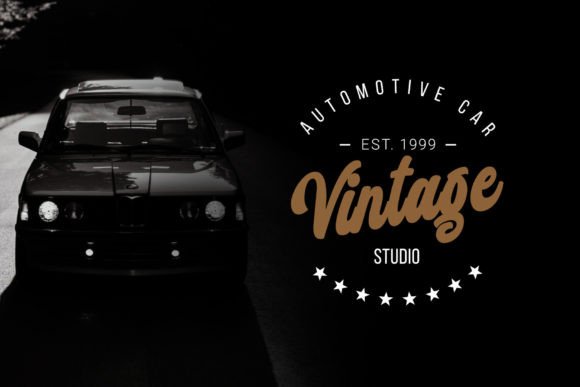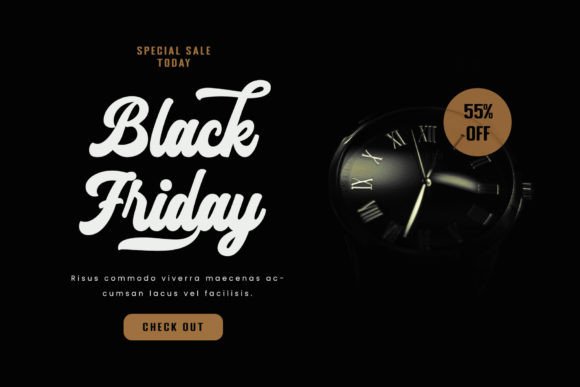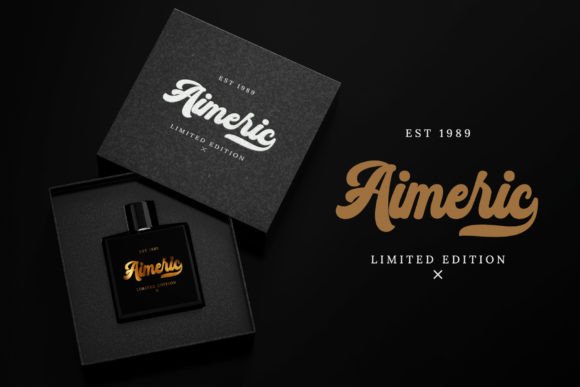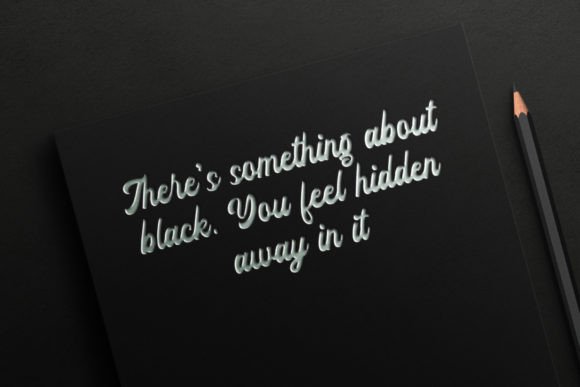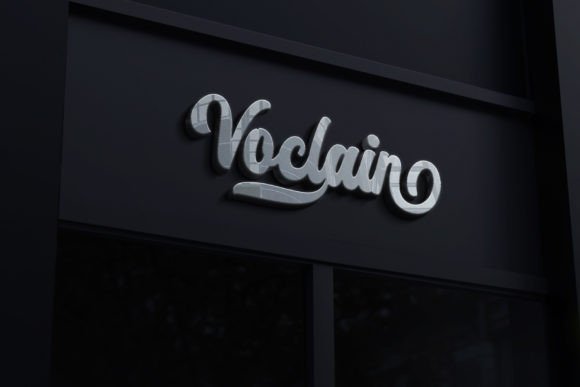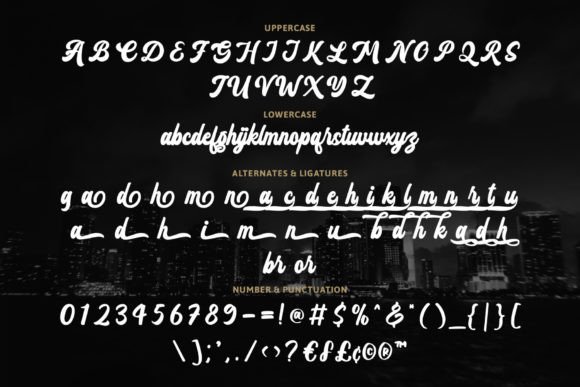
Introduction to Mangola Font
Have you ever found yourself in a creative frenzy, pouring your heart and soul into a project, only to realize that the perfect font is missing? This is a common dilemma that many designers face, but what if I told you that there’s a solution that can elevate your design game? Say hello to the Mangola Font, a stunning cool bold script font that adds a touch of elegance and sophistication to any project.
As a valuable resource for designers, the Mangola Font is perfect for creating high-quality designs that stand out from the crowd. Whether you’re working on a wedding invitation, a thank you card, or a logo, this font is sure to impress. With its free download option and transparent background, you can easily integrate it into your creative project and take it to the next level.
Key Features of Mangola Font
- High-quality, professional design resource ideal for creative projects
- Unique, stylish design perfect for adding a touch of elegance to any project
Honest Review: Mangola Font
I recently stumbled upon the Mangola Font while searching for a design resource to enhance my creative project. I was impressed by its high quality and unique style, which made it stand out from other fonts I’ve used in the past.
- ✨ The font has a clear and transparent background, making it easy to use for backgrounds and overlays.
- ✨ It’s highly versatile and can be used for a variety of design projects, from logos to posters.
- ⚠️ The font may not be suitable for very small text sizes, as the characters can become difficult to read.
- ⚠️ Some users may find the font’s unique style too bold or overpowering for certain design projects.
Overall, I’m impressed with the Mangola Font and would definitely recommend it for designers looking for a high-quality, creative resource. While it may not be perfect for every project, it’s a great addition to any design arsenal.
Tips for Getting the Most Out of Mangola Font
To get the most out of Mangola Font, experiment with different font sizes, colors, and combinations to find the perfect look for your project. You can also use it in conjunction with other design elements, such as images or shapes, to create a visually appealing design.
Common Use Cases for Mangola Font
Mangola Font is perfect for a variety of creative projects, including logos, social media graphics, posters, and business cards. Its high-quality design and transparent background make it ideal for any project where you want to add a touch of elegance and sophistication.
Alternatives to Mangola Font
Great Vibes is a high-quality, elegant script font ideal for creative projects that require a touch of sophistication. It’s perfect for wedding invitations, quotes, and other design elements that need a romantic feel.
Great Vibes Font is similar to Mangola Font in its flowing, handwritten style, but it has a more refined and delicate appearance. It’s a great alternative for designers looking for a more polished and high-end feel.
Pacifico is a beautiful, modern script font that’s perfect for creative projects that require a touch of elegance and sophistication. It’s ideal for design elements that need a high-end feel, such as logos, typography, and quotes.